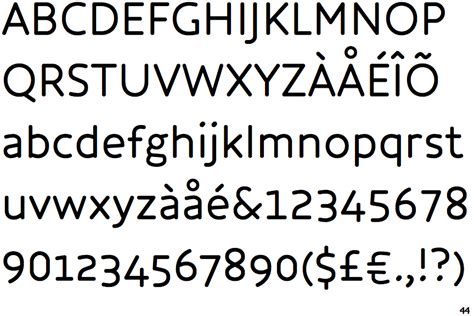
Sans Humanist
Humanist Sans Font. Web cabin is a humanist sans inspired by edward johnston's and eric gill's typefaces, with a touch of modernism. Web open sans is a humanist sans serif typeface designed by steve matteson, type director of ascender corp.
Web cabin is a humanist sans inspired by edward johnston's and eric gill's typefaces, with a touch of modernism. Web open sans is a humanist sans serif typeface designed by steve matteson, type director of ascender corp.
Web cabin is a humanist sans inspired by edward johnston's and eric gill's typefaces, with a touch of modernism. Web cabin is a humanist sans inspired by edward johnston's and eric gill's typefaces, with a touch of modernism. Web open sans is a humanist sans serif typeface designed by steve matteson, type director of ascender corp.